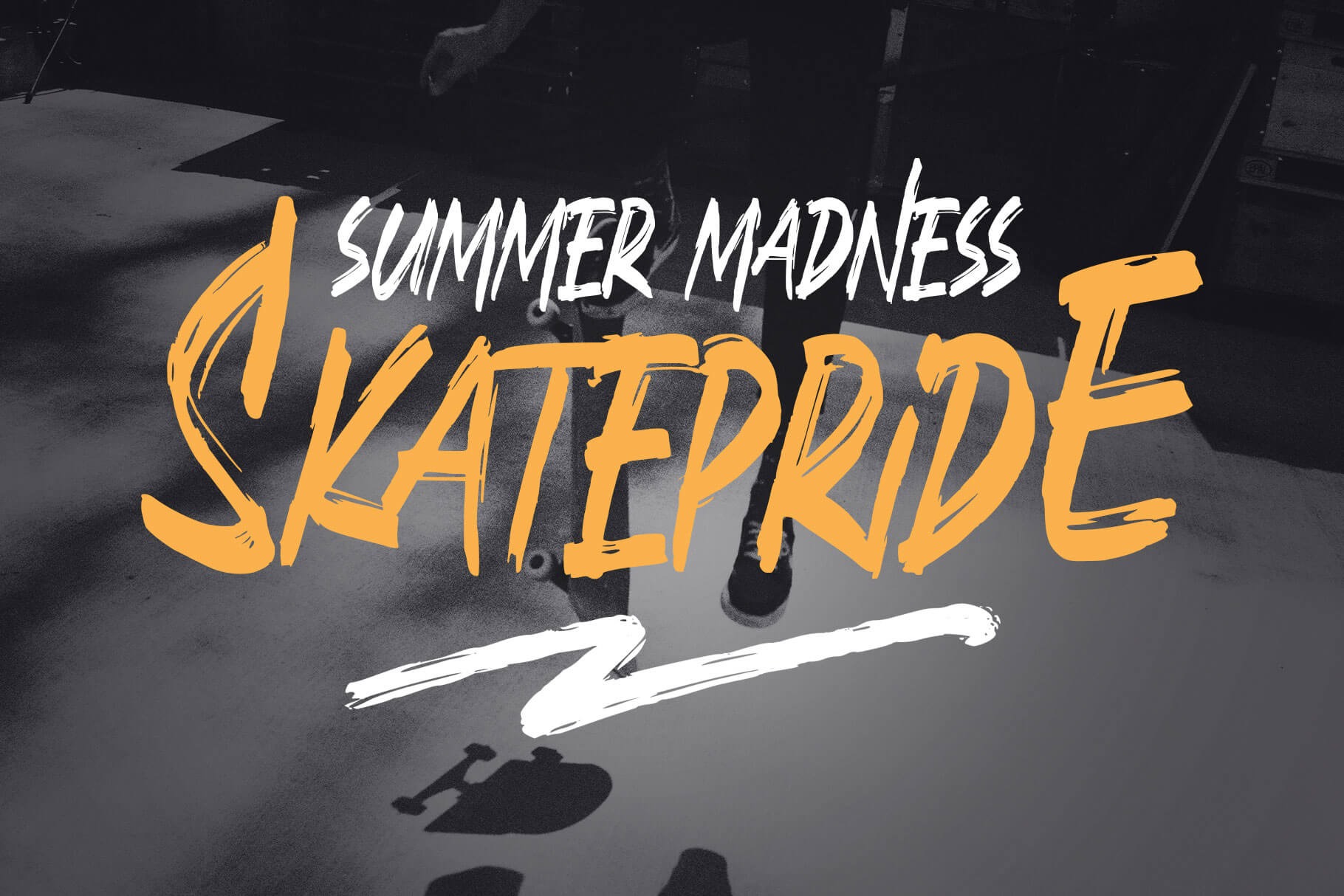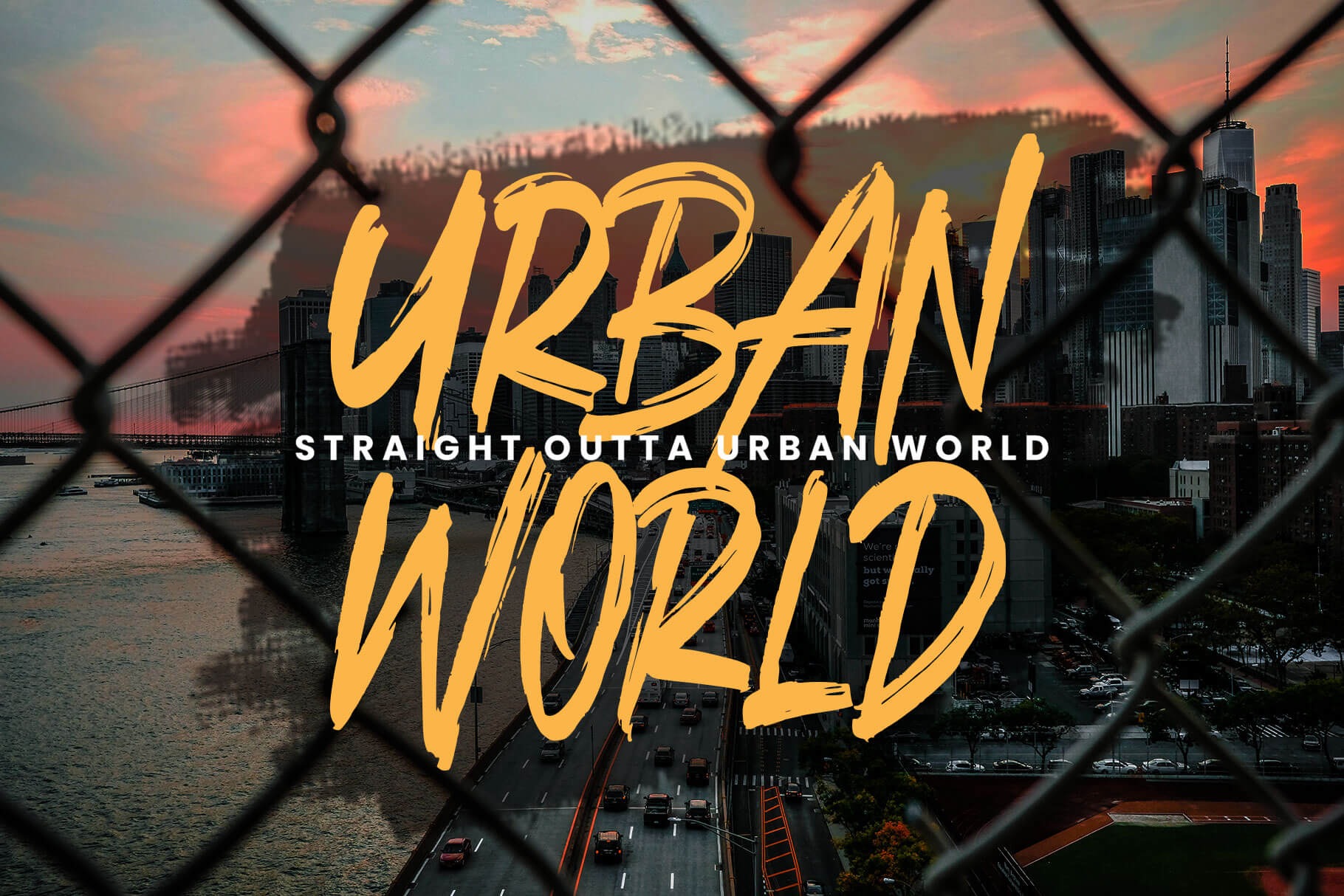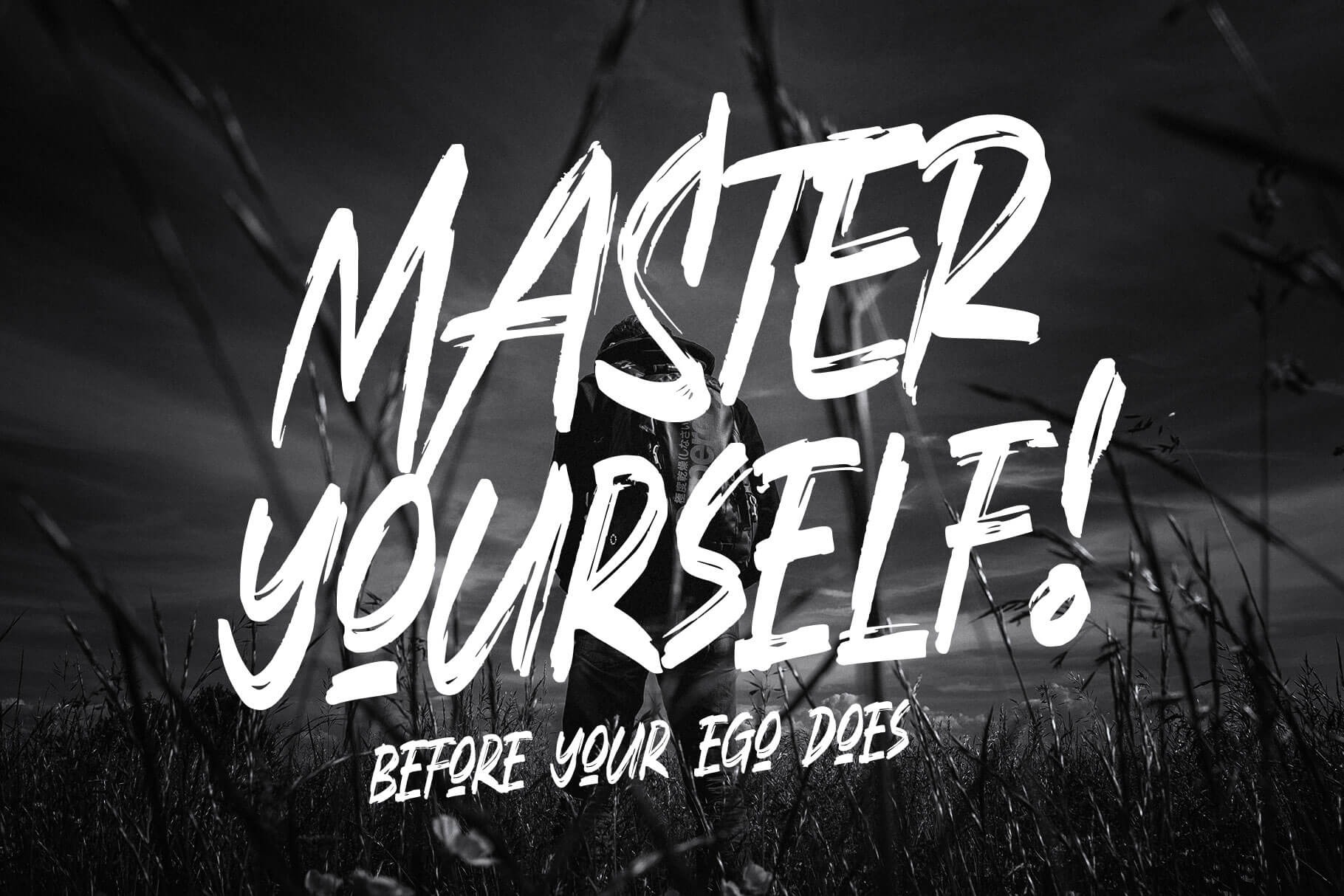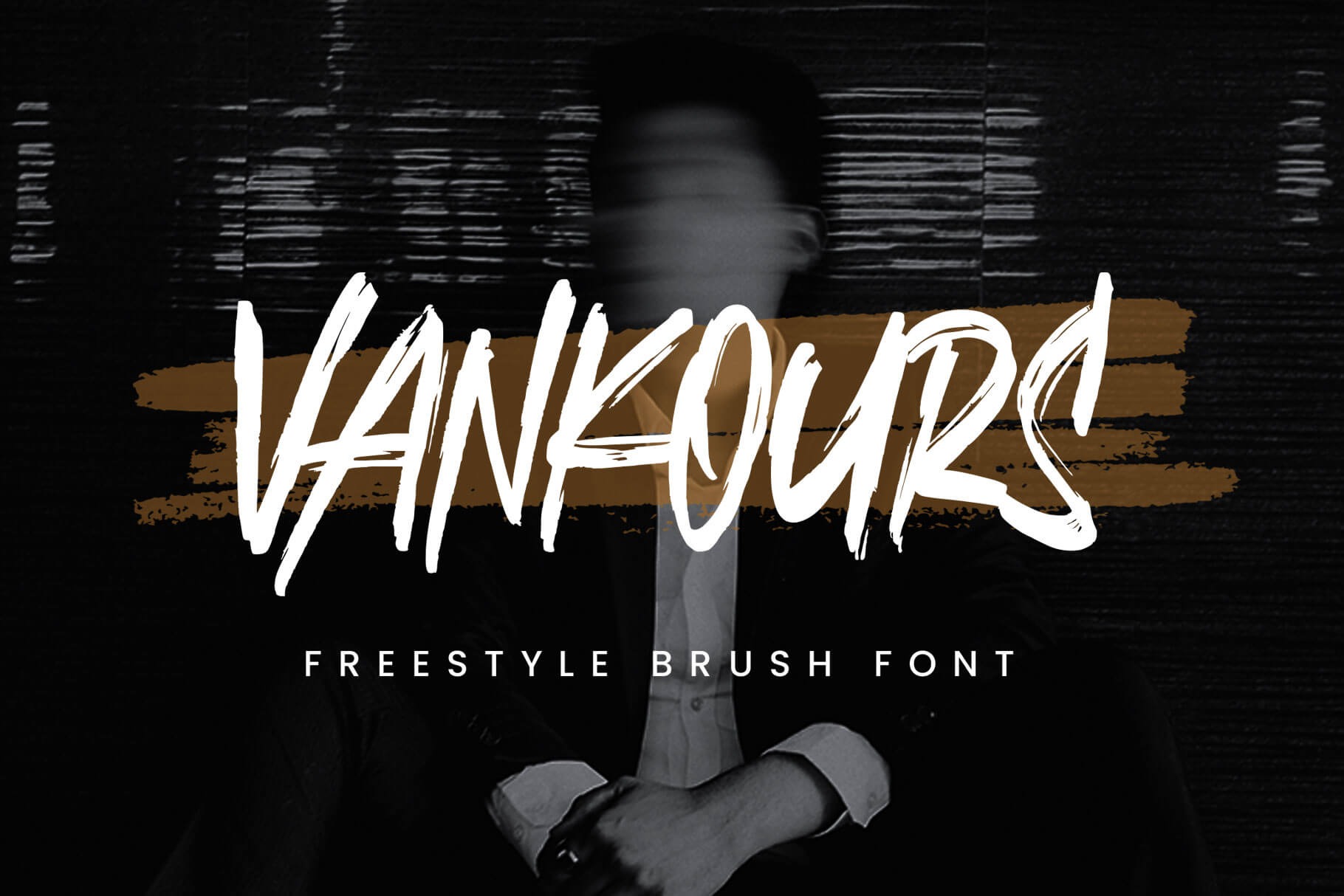
Vankours Font
Vankours Brush Font
This is a handmade style font with stunning characters. Made with a brush and high quality water-based ink. Vankours is perfect for many themes such as urban, thriller, sporty, vibrant, and youth taste! Good choice to use this font for Logo, Merchandise, Brand imagery, Apparel, Packaging, Simple quotes, and many more!